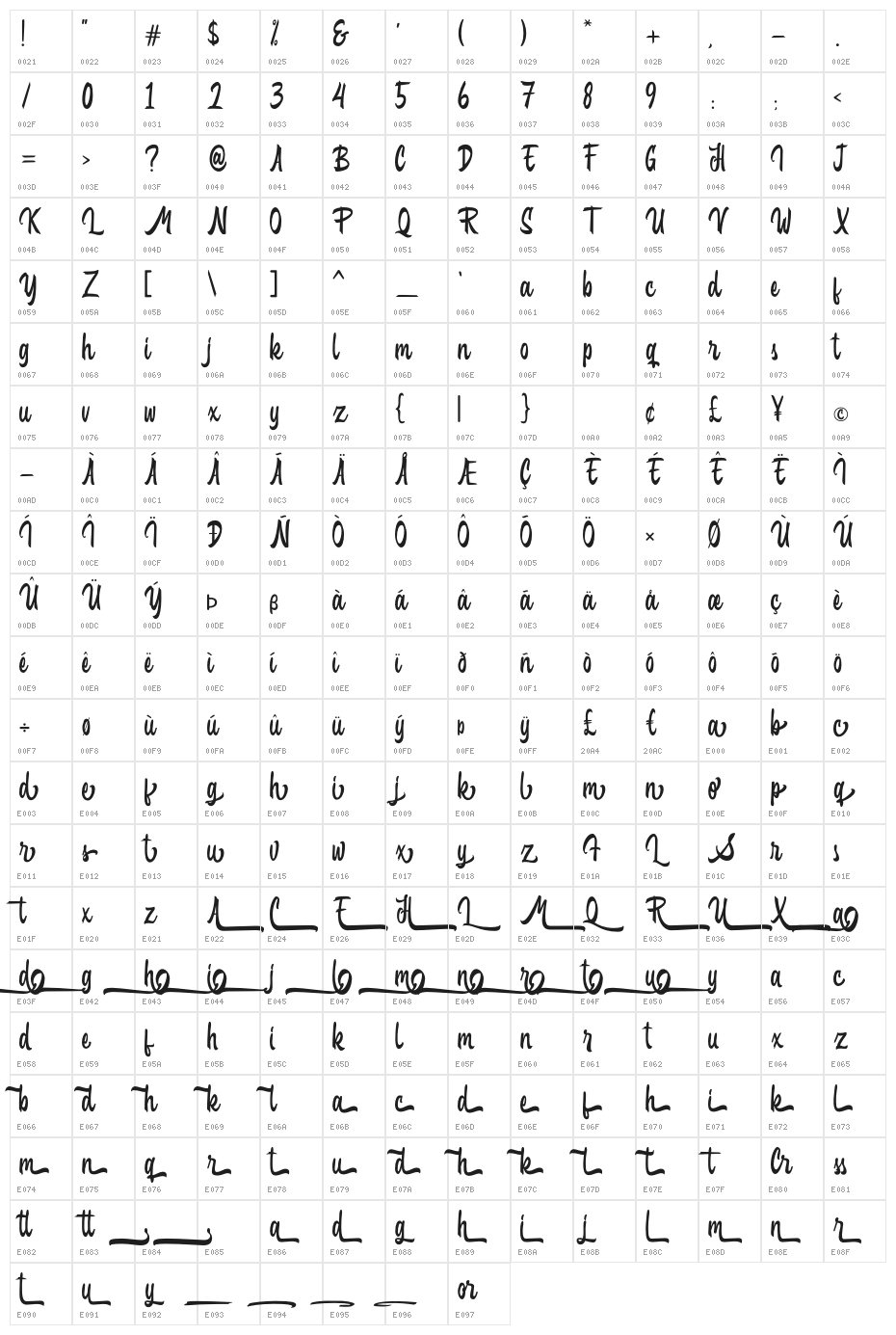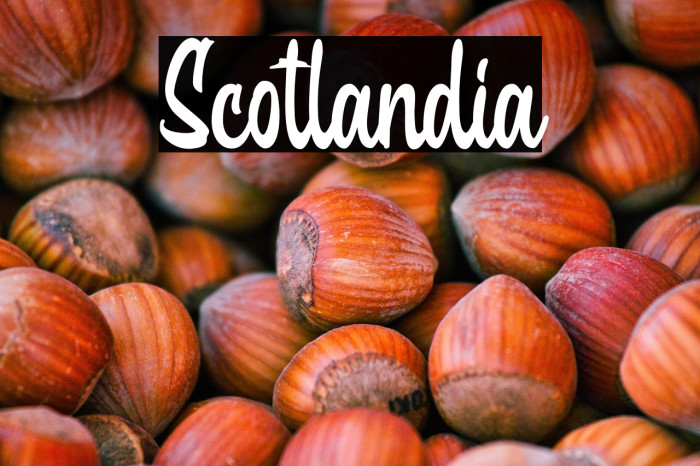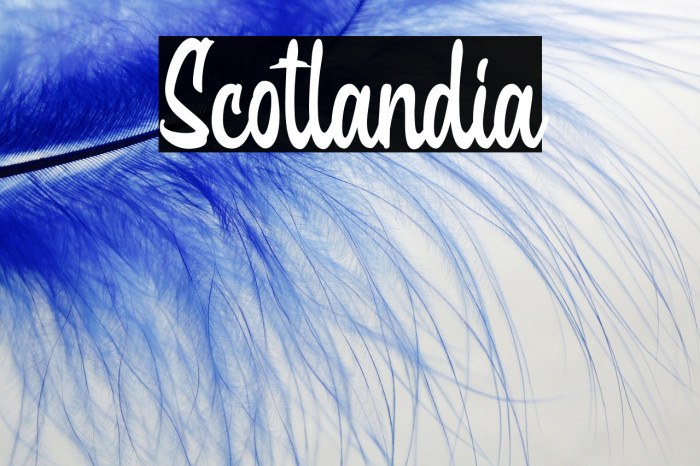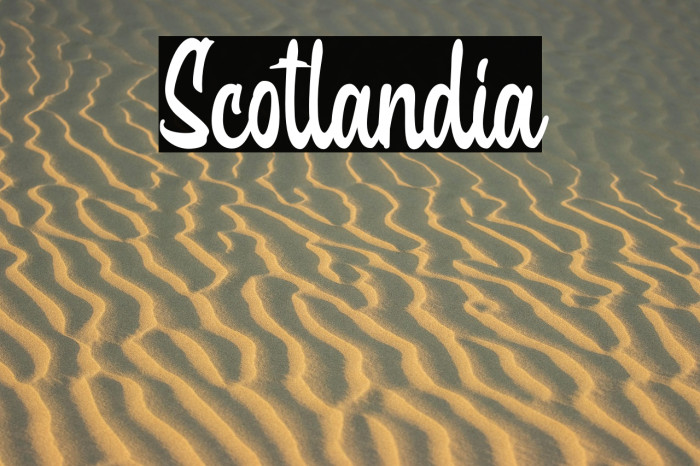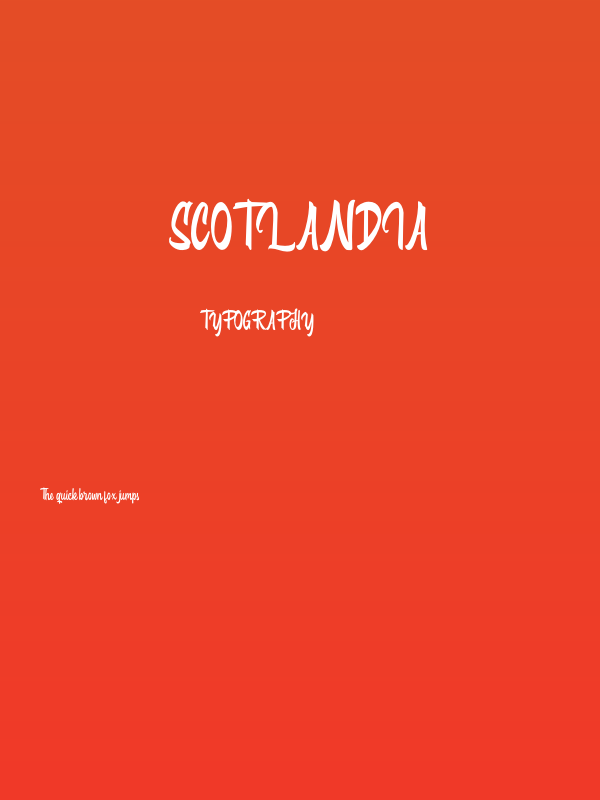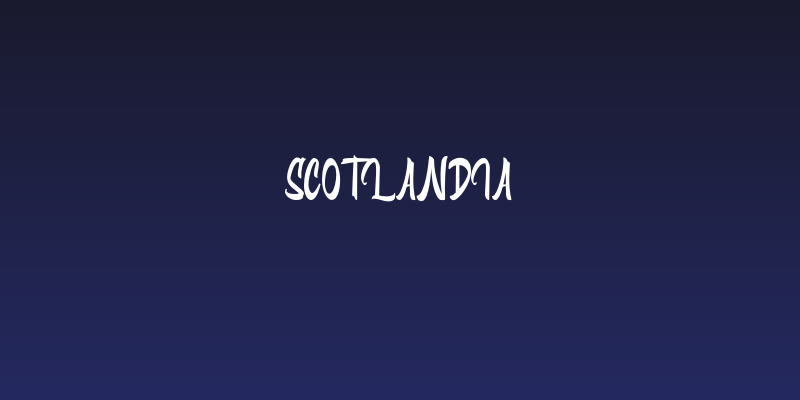
Scotlandia Font
Scotlandia Description
This font features a lively and dynamic script style with a handwritten feel. The uppercase letters are bold and slightly slanted, giving a sense of movement and energy. The lowercase letters maintain a consistent flow, with smooth curves and a casual elegance. Numbers and special characters are designed to match the playful and informal tone of the alphabet. The overall appearance is both approachable and stylish, making it suitable for a variety of creative applications. The font's unique character is emphasized by its moderate contrast in stroke thickness, adding to its readability and charm.
| Proposed Projects | Ideal for greeting cards, invitations, branding, and social media graphics. |